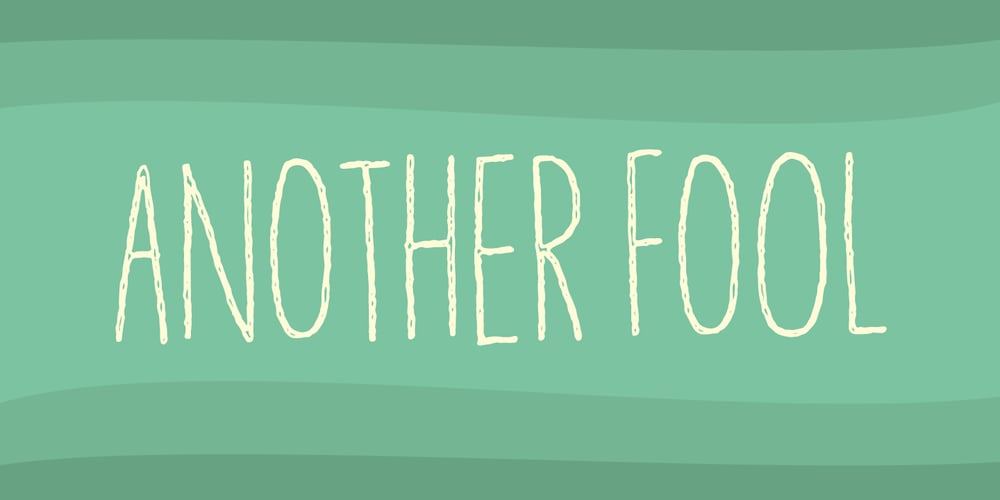
Another Fool Font Family was designed by Jakob Fischer and published by PizzaDude.dk. Another Fool contains 1 styles and family package options. Another font, Another Fool!This one made me think of cake – you know, a crisp crust and sprinkles on top. Perhaps the recipe includes blueberry and peanuts? Well, this fonts’ recipe includes 6 different versions of each letter as well as multilingual support! Yummy!